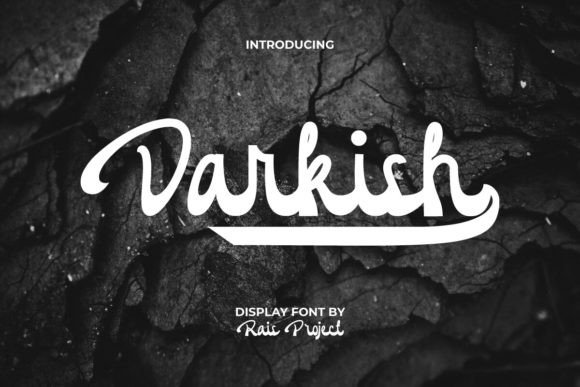
Step into the realm of boundless creativity with Darkish, the font that captures the essence of modern vintage. This meticulously crafted script font is a testament to the harmonious fusion of classic style with contemporary flair.
Darkish is not just a font; it's an expression of individuality, a channel for your unique voice. Let your words dance across the page, imbued with the timeless charm of a bygone era, yet infused with a touch of contemporary elegance.
With Darkish, you'll find endless opportunities to transform your designs into captivating masterpieces. Whether you're creating brochures that leave a lasting impression, content that captivates readers, covers that ignite curiosity, or custom designs that reflect your distinct vision, Darkish is your ultimate companion.
Unleash your imagination and design invitations that exude sophistication, labels that command attention, posters that ignite passion, and product packaging that demands a second glance. Let every quote resonate with authenticity, every screen print radiate with artistic flair, and every piece of signage leave an indelible mark.
Darkish is the font that transforms the ordinary into the extraordinary, the mundane into the magnificent. Elevate your brand's identity with Darkish, and watch as your designs take on a life of their own, attracting attention and captivating hearts.
Embrace the allure of Darkish today and experience the limitless possibilities that await you. Let your creativity soar, let your words shine, and let your designs inspire.